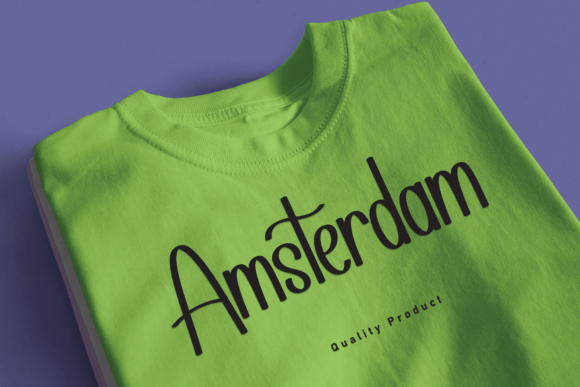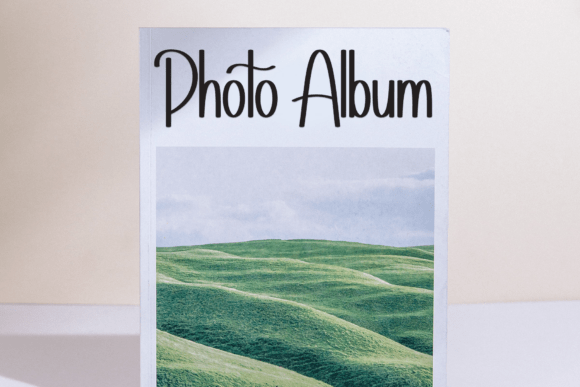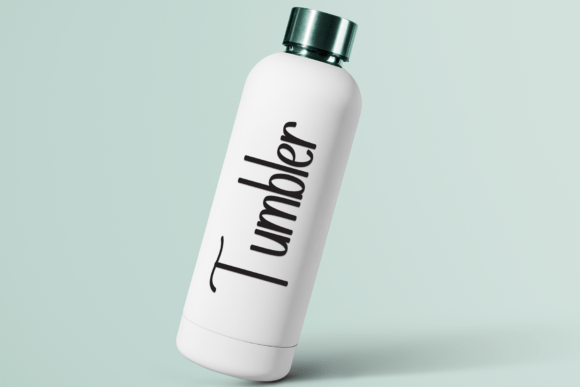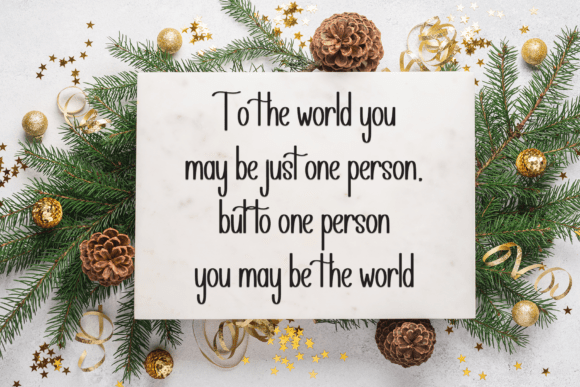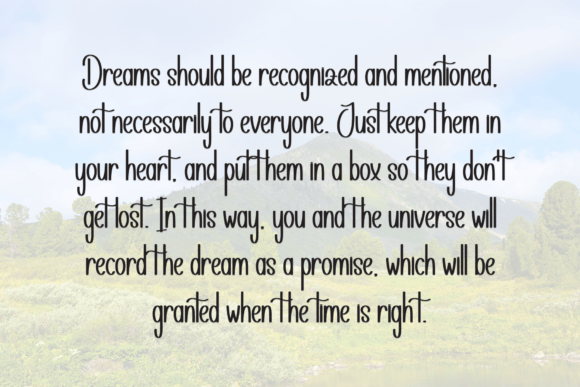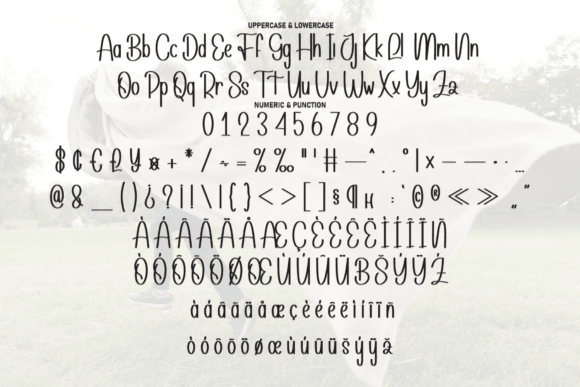
Introducing Blanket Font: The Ultimate Summer Display Font
Are you tired of using the same old fonts for your summer posters, event flyers, and playful branding? Look no further than Blanket Font, a neat and casual display font that’s sure to bring a breezy, laid-back feel to any creative project or message. With its clean lines and easygoing vibe, Blanket Font is the perfect choice for designers and crafters looking to add a touch of fun and relaxation to their work.
What is Blanket Font?
Blanket Font is a cheerful typeface that’s designed to evoke the feeling of a warm summer day. Its clean lines and simple shapes make it easy to read and understand, while its playful vibe adds a touch of whimsy to any design. Whether you’re creating a poster for a summer concert, a flyer for a beach party, or a brand identity for a new outdoor-inspired business, Blanket Font is the perfect choice.
Key Features of Blanket Font
- Clean Lines: Blanket Font features clean lines and simple shapes that make it easy to read and understand.
- Easygoing Vibe: The font’s playful vibe adds a touch of whimsy to any design, making it perfect for summer posters, event flyers, and playful branding.
- Versatile: Blanket Font is versatile and can be used for a wide range of creative projects, from posters and flyers to brand identities and packaging.
- Legible: The font is highly legible, even at small sizes, making it perfect for use on a variety of materials.
Uses for Blanket Font
Blanket Font is perfect for a wide range of creative projects, including:
- Summer Posters: Create eye-catching posters for summer concerts, festivals, and events with Blanket Font.
- Event Flyers: Use Blanket Font to create fun and playful flyers for beach parties, barbecues, and other outdoor events.
- Playful Branding: Add a touch of whimsy to your brand identity with Blanket Font, perfect for outdoor-inspired businesses.
- Crafting Projects: Use Blanket Font to add a personal touch to your crafting projects, such as handmade cards, gift tags, and scrapbooking.
Tips for Using Blanket Font
Here are a few tips for getting the most out of Blanket Font:
- Pair with Other Fonts: Pair Blanket Font with other fonts to create a unique and eye-catching design.
- Experiment with Colors: Try out different colors and color combinations to find the perfect look for your design.
- Use on Different Materials: Use Blanket Font on a variety of materials, such as paper, fabric, and wood, to add a personal touch to your crafting projects.
Blanket Font is a versatile and fun display font that’s perfect for designers and crafters looking to add a touch of whimsy to their work. With its clean lines, easygoing vibe, and high legibility, Blanket Font is the perfect choice for summer posters, event flyers, playful branding, and crafting projects. So why wait? Download Blanket Font today and start creating your own unique and eye-catching designs!